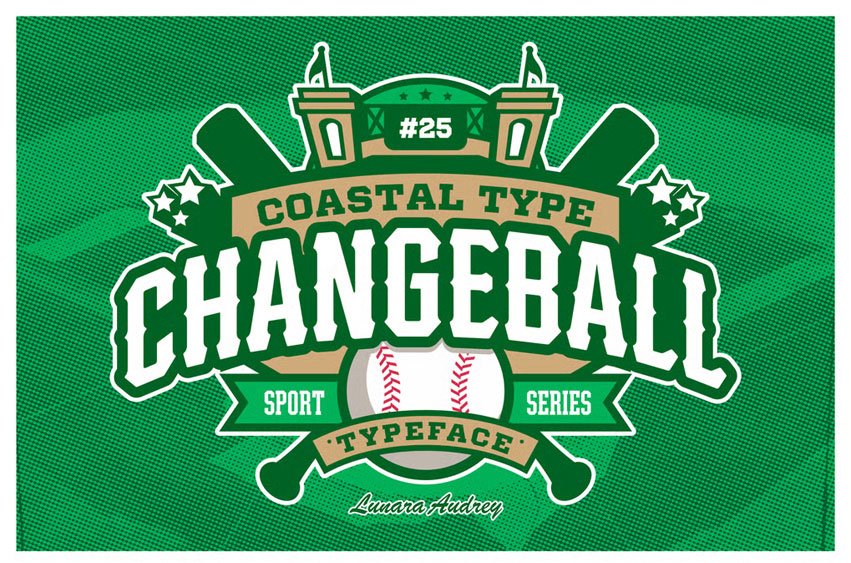
Changeball Font is a smooth and rounded corners baseball serif font. Inspired by American heritage baseball team.
These fonts are perfect for sports logos, branding, posters, apparel design, magazine headlines, labels and so much more.